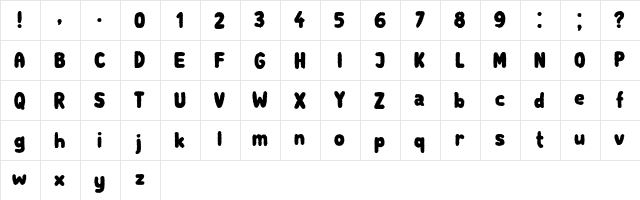
Gas Bags Regular
Design Context for Gas Bags Typeface
Gas Bags offers clean, dependable letterforms without strong stylistic allegiance, making it a practical choice for designers who need flexibility.
Pro Tip: Use Gas Bags in both headline and body roles to test its range before committing to a single application.